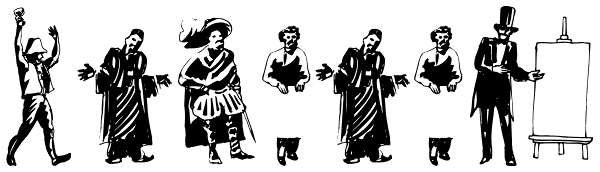
Genteta
In the tradition of the stock cuts that printing type foundries offered as metal, these spot illustrations remind you —for their look and technique— of vintage publications like victorian age newspapers and magazines. Similar to their counterparts...